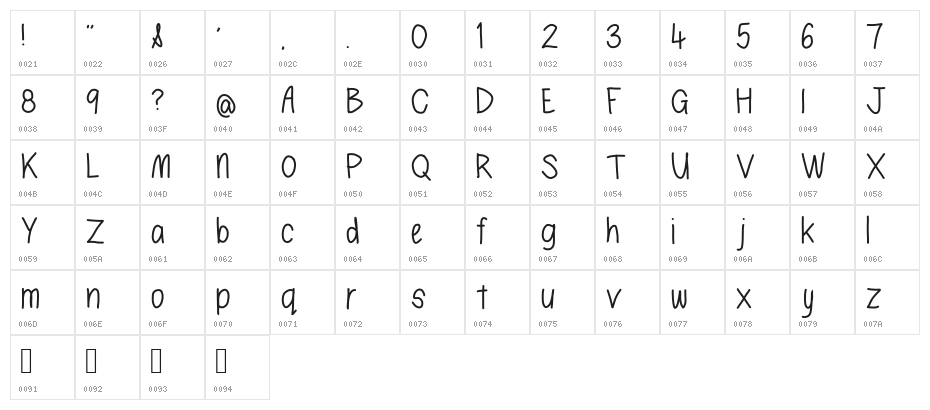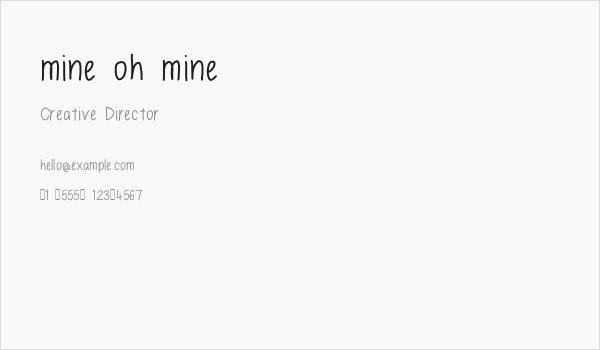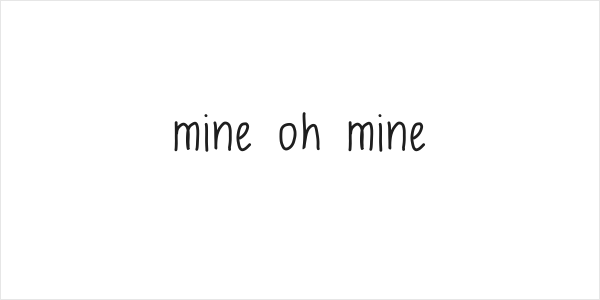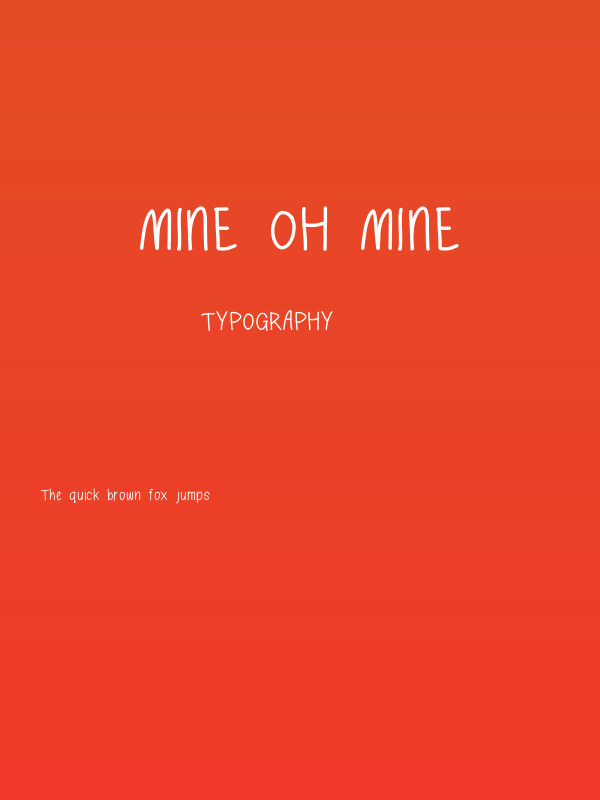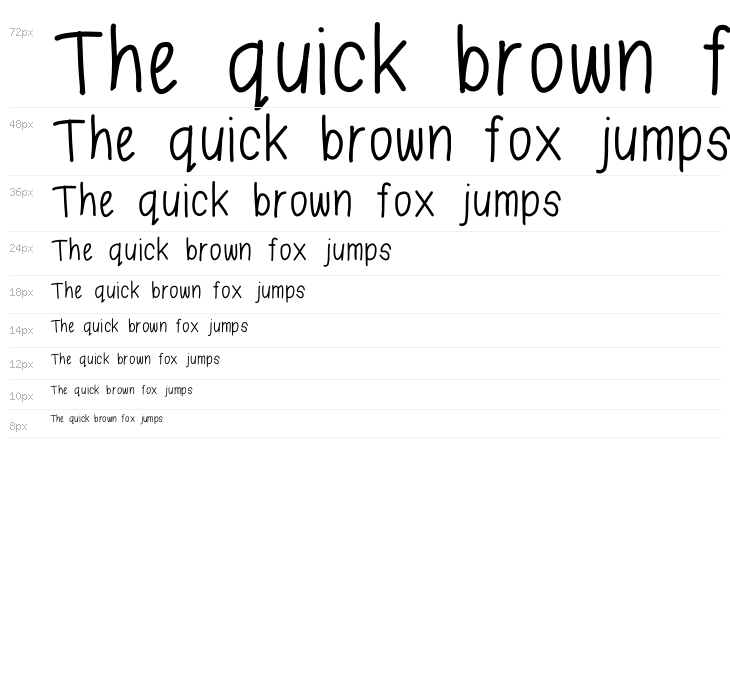
mine oh mine Font
mine oh mine Description
This playful and whimsical font features a handwritten style with a casual and friendly appearance. The letters are slightly irregular, adding a personal touch that mimics natural handwriting. The uppercase characters are bold and rounded, while the lowercase letters maintain a consistent flow with gentle curves. Numbers are clear and easy to read, matching the overall style. Special characters are included, maintaining the same playful aesthetic. This font is perfect for projects that require a personal, approachable feel.
| Use Case | Headlines, Informal text, Personal projects |
| Proposed Projects | Ideal for children's books, greeting cards, personal blogs, and informal branding. |